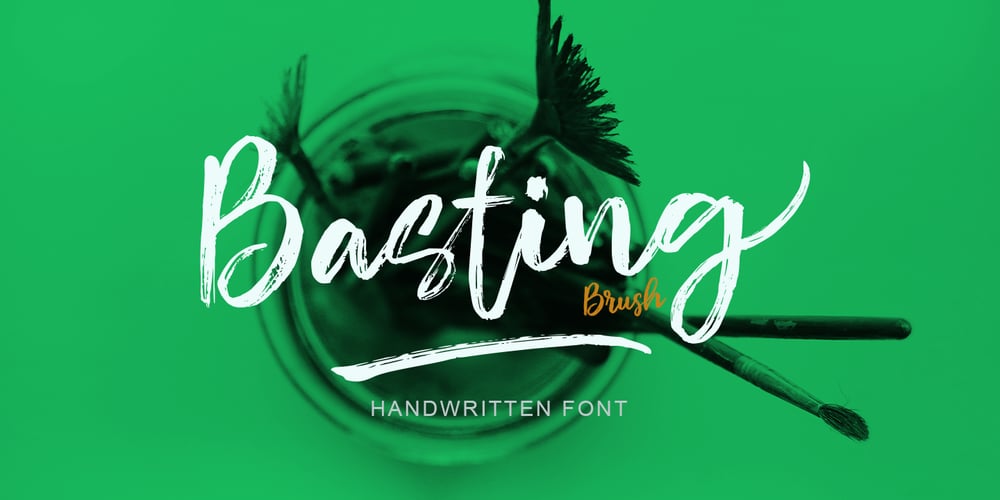
Basting Brush Font Family was designed by Yur Lis and published by Stripes Studio. Basting Brush contains 2 styles and family package options. Basting Brush is a modern brush font, organic, dynamic and energetic sytle.Can used for various purposes. such as the title, signature, logo, correspondence, wedding invitations, letterhead, signage, labels, newsletters, posters, badges, etc.How to access all alternative characters, using Windows Character Map with Photoshop:https://www.youtube.com/watch?v=Go9vacoYmBwHow to access all alternative characters using Adobe Illustrator:https://www.youtube.com/watch?v=XzwjMkbB-wQBasting Brush Script is coded with PUA Unicode, which allows full access to all the extra characters without having special designing software. Mac users can use Font Book , and Windows users can use Character Map to view and copy any of the extra characters to paste into your favourite text editor/app.Thanks so much for looking and please let me know if you have any questions.